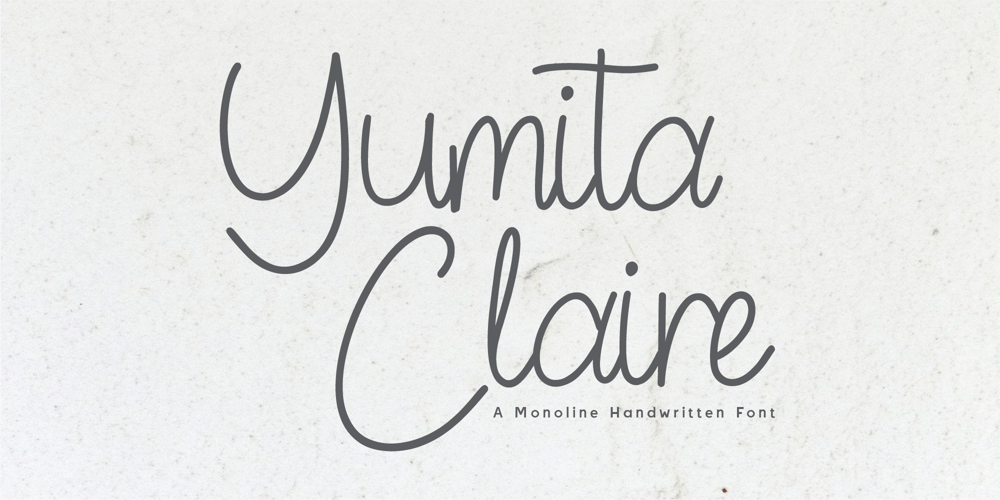
CF Yumita Claire Font Family was designed by Gilang Mei Nugraha, Frederik Aristaputra and published by Creatifont Studio. CF Yumita Claire contains 2 styles and family package options. Yumita Claire โ A Chic & Elegant Monoline Handwritten FontMeet Yumita Claire, a sophisticated monoline handwritten font that captures the essence of modern minimalism and refined elegance. With its fluid, single-line strokes and delicate curves, this typeface embodies simplicity, class, and effortless beauty.Perfect for branding, fashion labels, wedding stationery, social media, and signature logos, Yumita Claire offers a lightweight yet stylish aesthetic that enhances any project. Whether you’re designing for high-end brands or personal projects, this font adds a touch of sophistication and authenticity.Why Choose Yumita Claire?โจ Minimalist & Elegant: A refined monoline script with graceful movement.๐ Perfect for Chic Branding: Ideal for fashion, beauty, and lifestyle projects.๐ Authentic Handwritten Feel: Designed to replicate effortless handwriting.๐ Versatile & Readable: A stylish yet clear typeface for various creative uses.Let Yumita Claire bring a touch of modern elegance to your designs. Download now and create with timeless sophistication! โจ๐๏ธA SUMMARY OF WHAT’S INCLUDED:- Standard Character A-Z, a-z, 0-9, Punctuation & symbols- Regular and Italic- Works on PC & Mac- Simple installation- Accessible in Adobe Creative Suite (Ai, Ps, Id, etc.) even work on Microsoft Word.- PUA Encoded Characters โ Fully accessible without additional design software.๐If you come across any issues or notice anything we might have overlooked while using this product, please feel free to reach out to us. We greatly value your feedback as it helps us enhance and refine our products. Thank you!